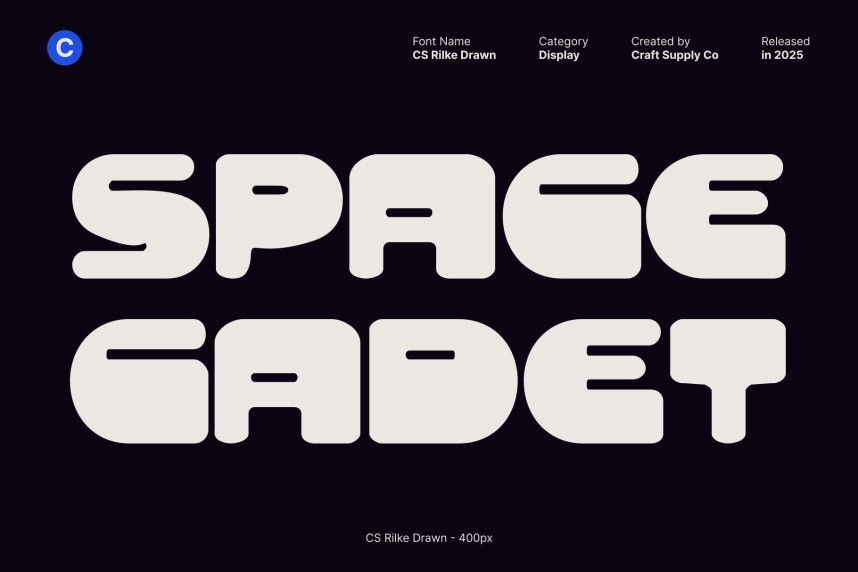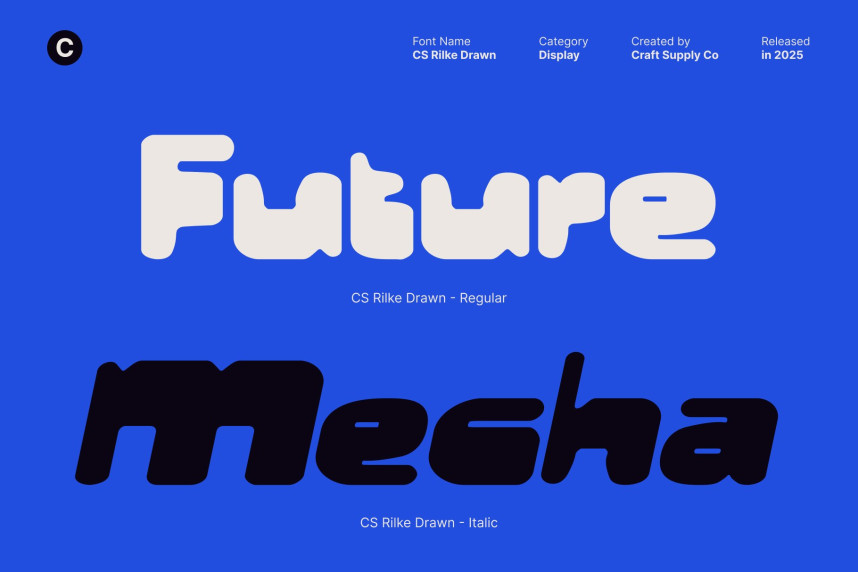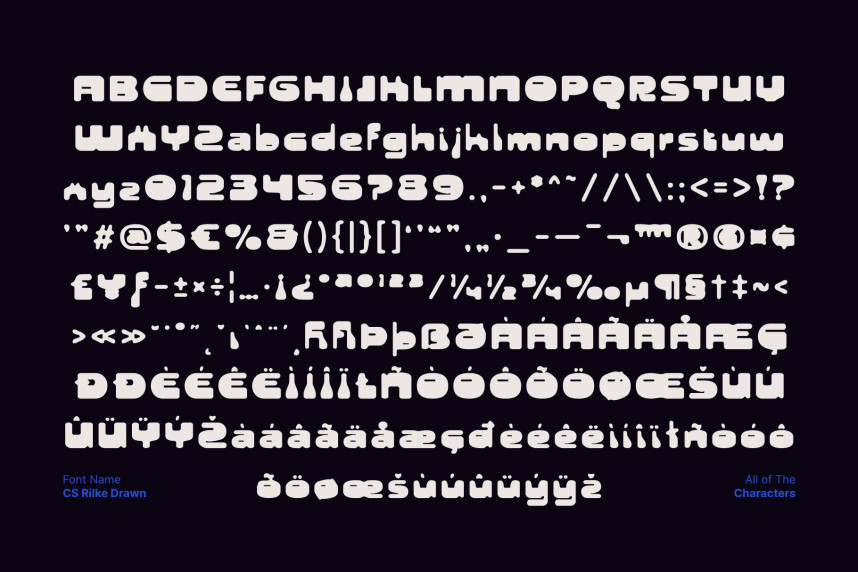
CS Rilke Drawn Font
CS Rilke Drawn Font – Futuristic Display Font with Digital Edge Futuristic Style with a Y2K Twist. This is a futuristic display font infused with a bold Y2K-inspired aesthetic and enhanced by a subtle hand-drawn texture. Its sharp structure and contemporary flow capture the spirit of digital culture, while the drawn effect adds a natural, organic layer that makes the font feel more expressive and unique. The result is a futuristic typeface that feels energetic, stylish, and visually distinctive.